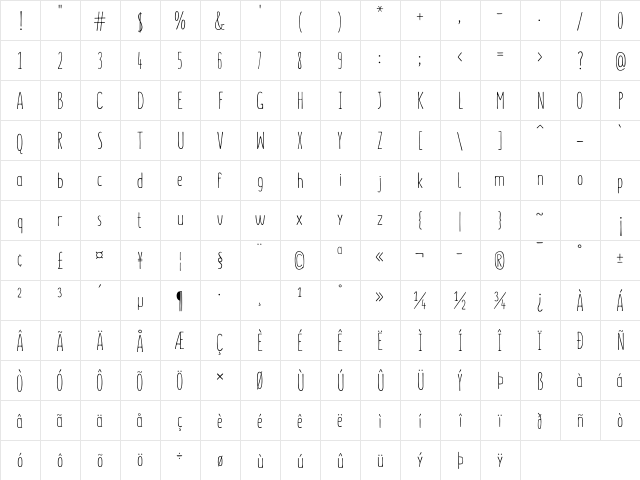
Summer Font Regular
Design Context for Summer Font Typeface
Summer Font takes a measured approach to typography — its balanced proportions and neutral character make it a reliable workhorse for both digital and print work.